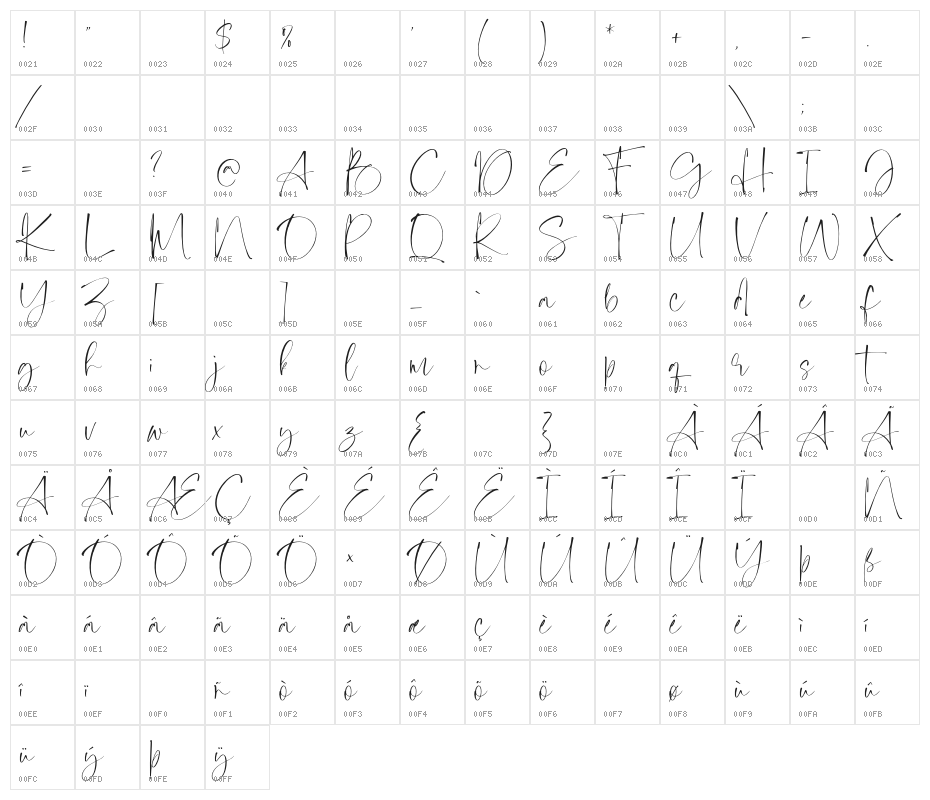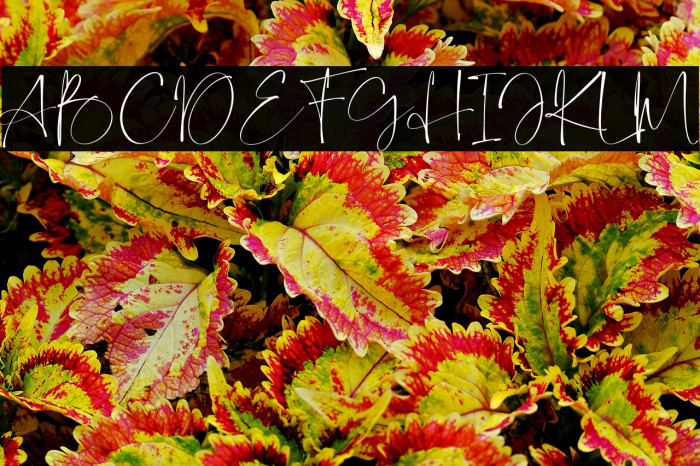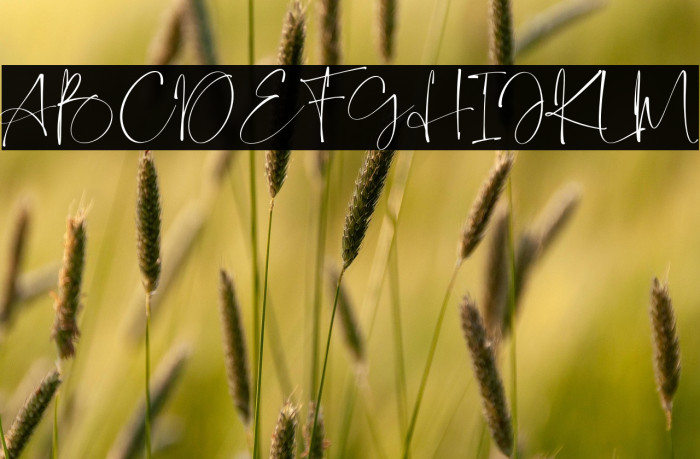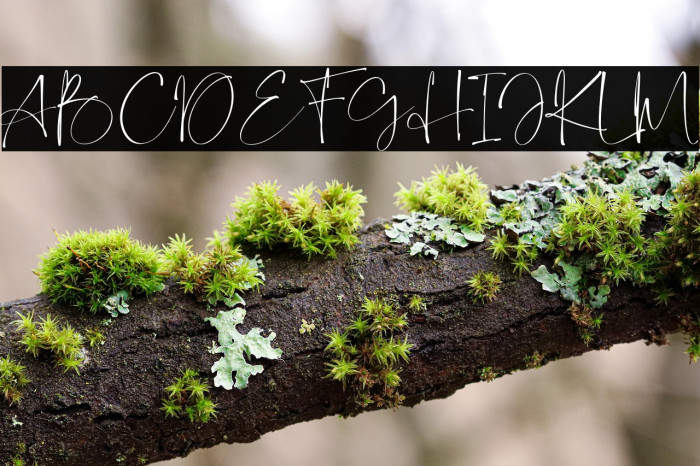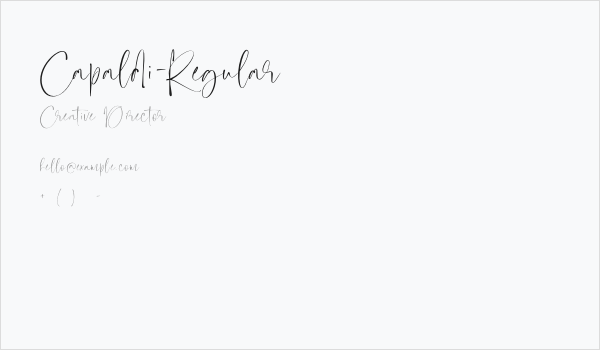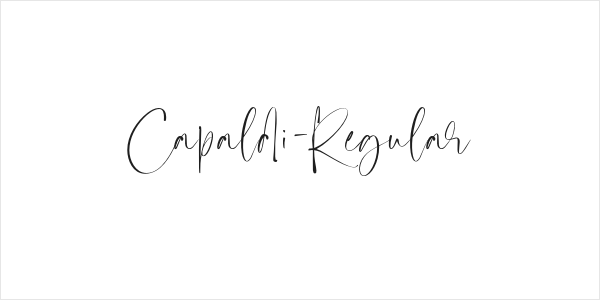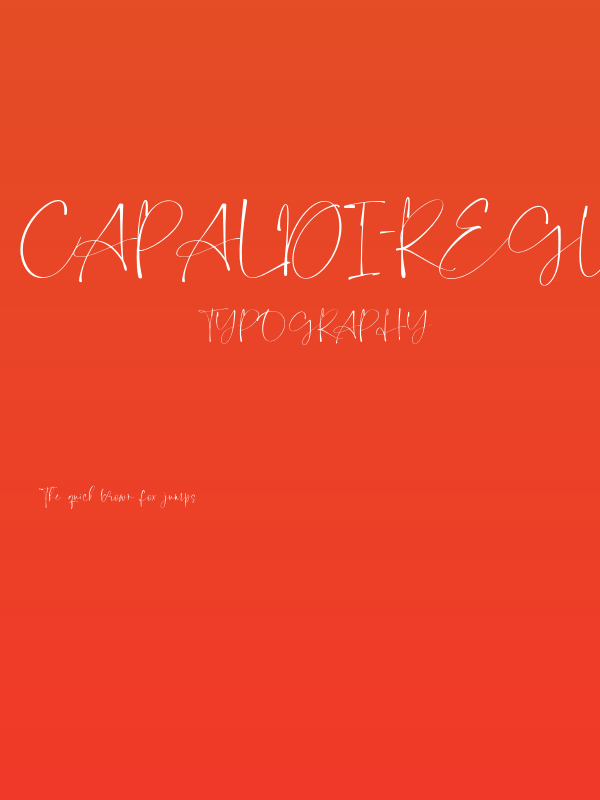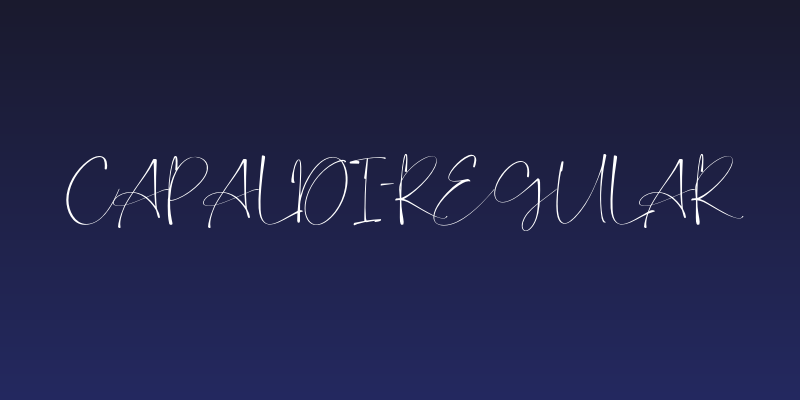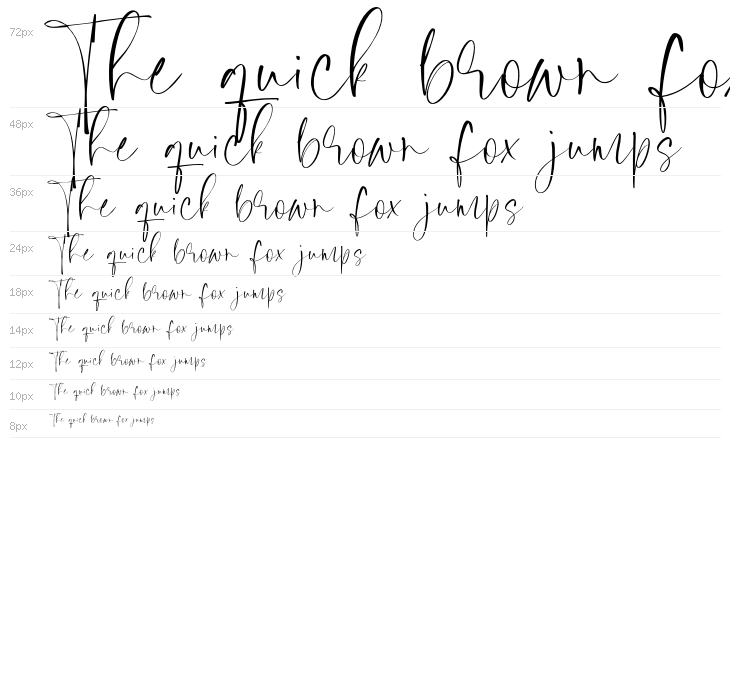
Capaldi-Regular Font
Capaldi-Regular Description
This font features a dynamic and flowing handwritten style, characterized by its elegant and fluid strokes. The letters are interconnected with a natural rhythm, giving it a personal and artistic touch. The uppercase letters maintain a consistent height, while the lowercase letters exhibit a playful variation in size and form. The font includes a full set of numerals and a variety of special characters, each crafted with the same attention to detail and style. The overall appearance is both sophisticated and approachable, making it suitable for a range of creative applications.
| Use Case | Logos, Headlines, Artistic projects |
| Proposed Projects | Ideal for wedding invitations, personal branding, artistic projects, and greeting cards. |